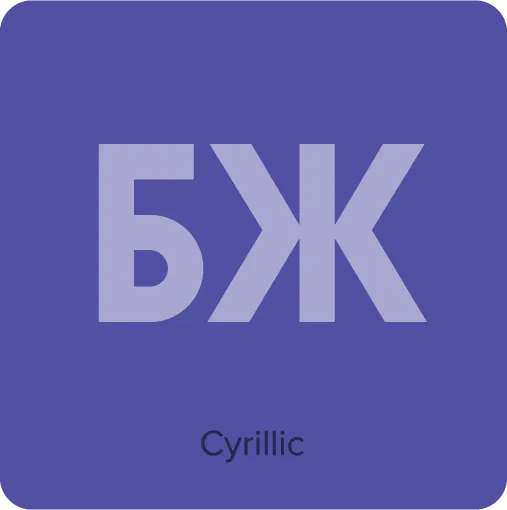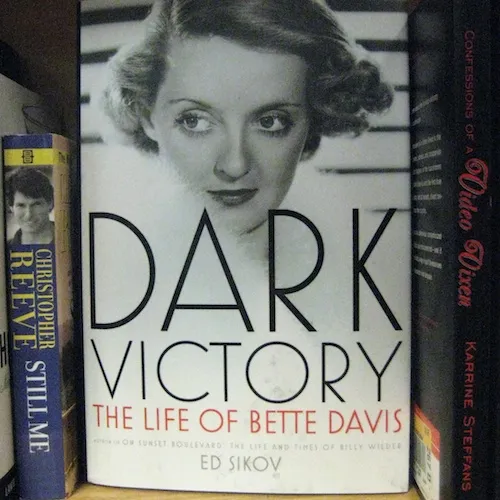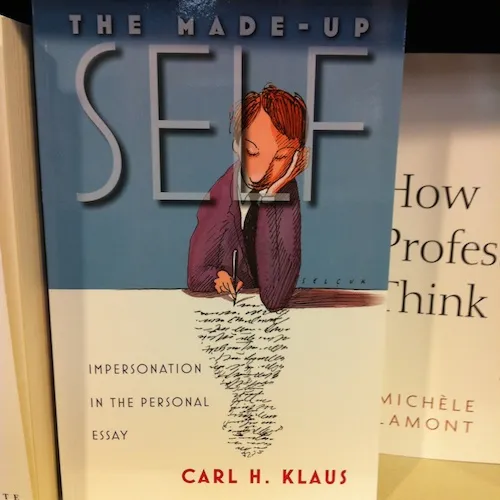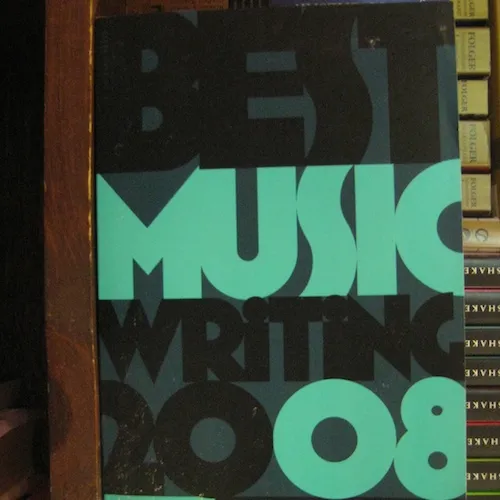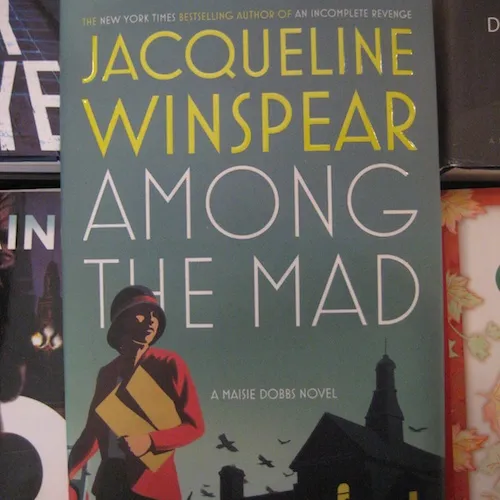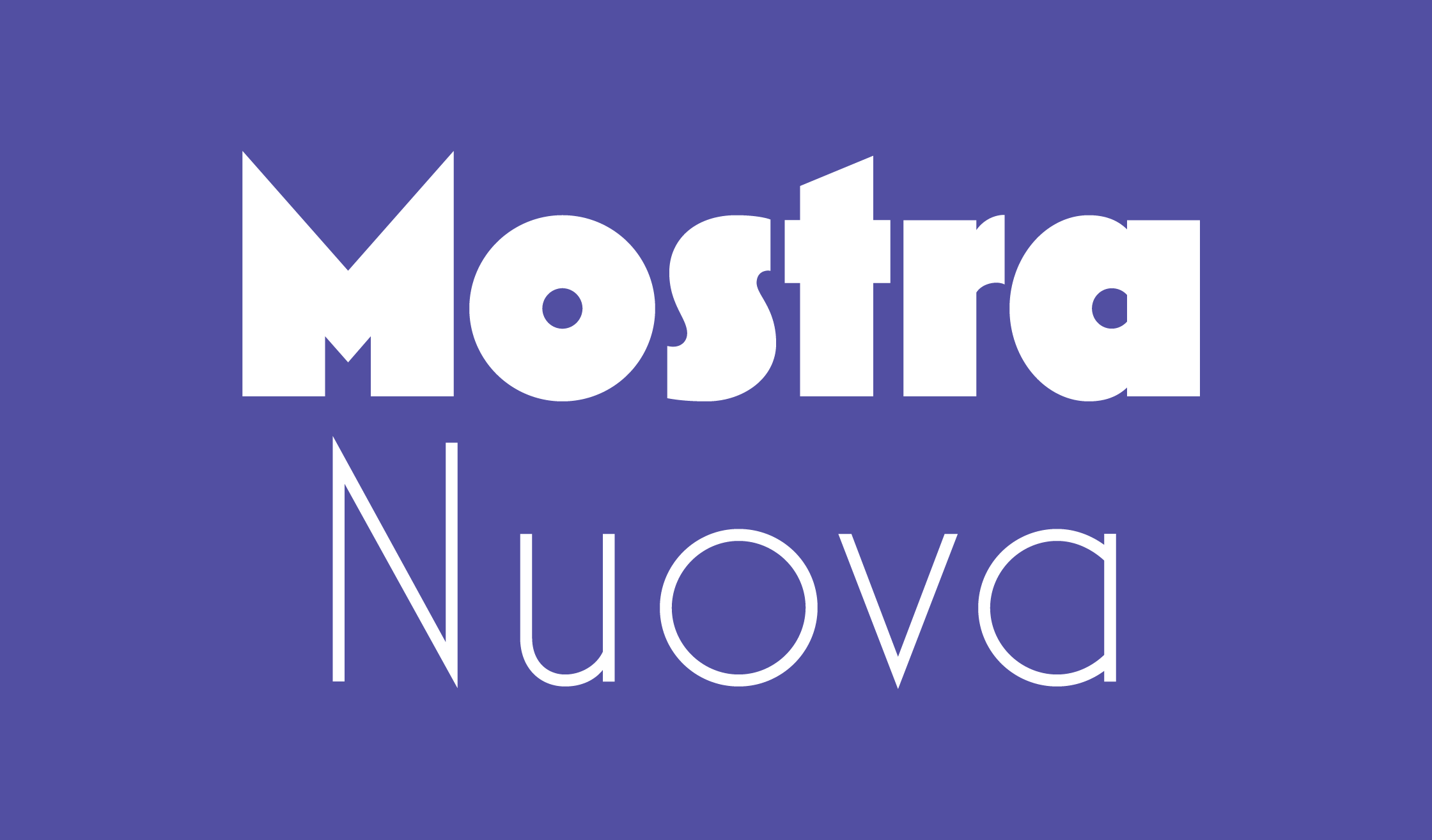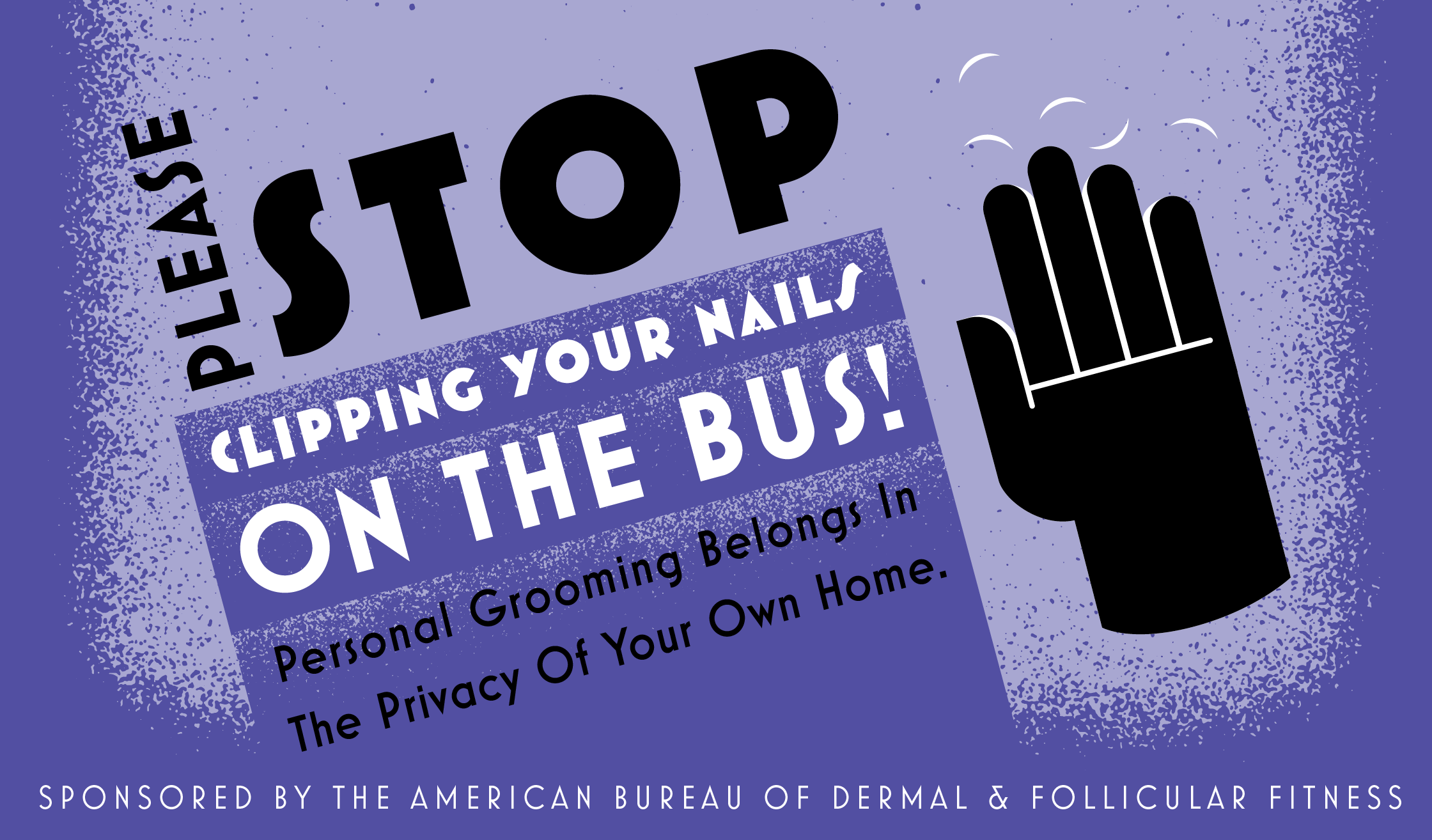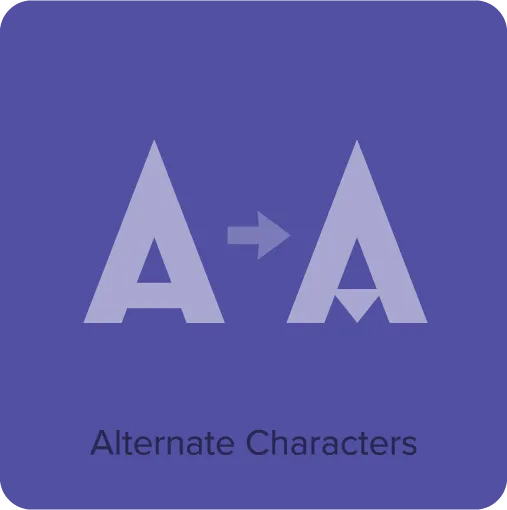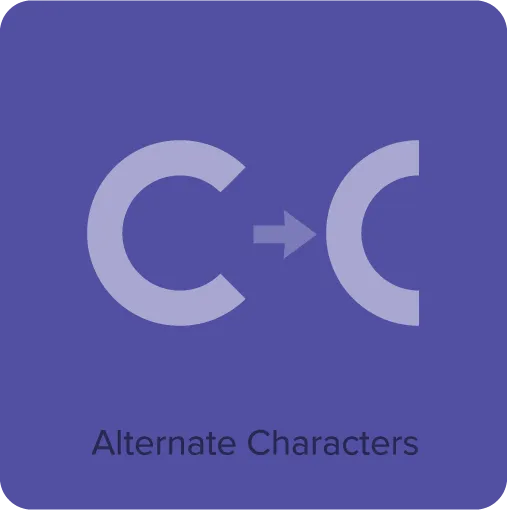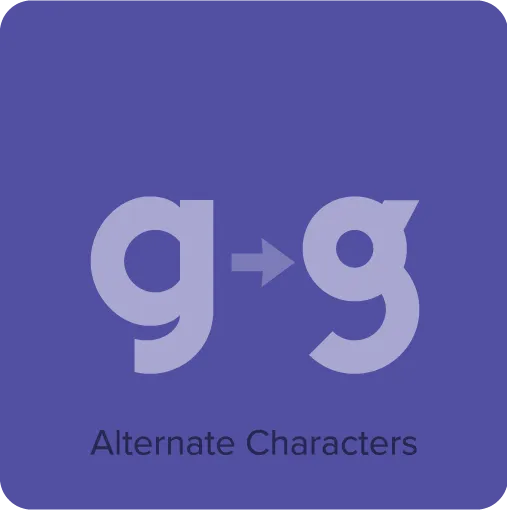
Mostra Nuova (2009) is based on a style of lettering seen on Italian Art Deco posters and advertising of the 1930s. Although it’s very geometric, I made subtle optical adjustments to keep it from looking too severely mechanical. I first released it in 2001 as Mostra, a caps-only design. Mostra Nuova has more weights, better language support, and lowercase letters. It features dozens of alternate characters providing endless stylistic possibilities within the basic design, from fairly plain to quite stylized.
Mostra Nuova Features
- Nine weights: Thin, Light, Regular, Semibold, Bold, Extrabold, Heavy, Extraheavy, and Black.
- Alternate characters, representing commonly-found variations in Italian Art Deco lettering.
- 20 stylistic sets for enhanced access to the many alternate characters.
- Case sensitive forms.
- Extended language support for most Latin-based Western and Central European languages, as well as Cyrillic.